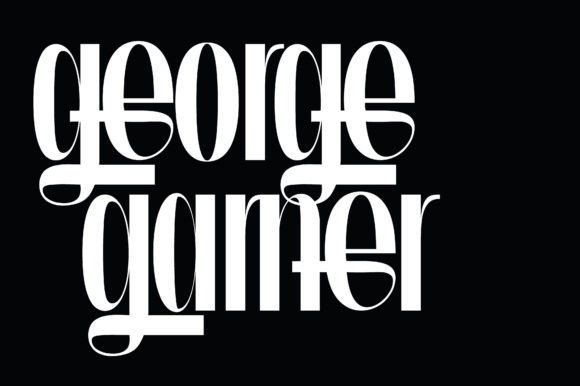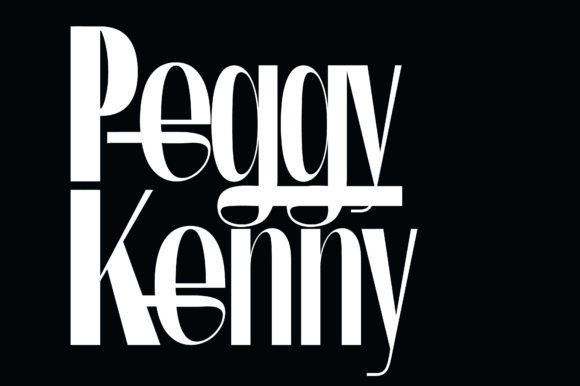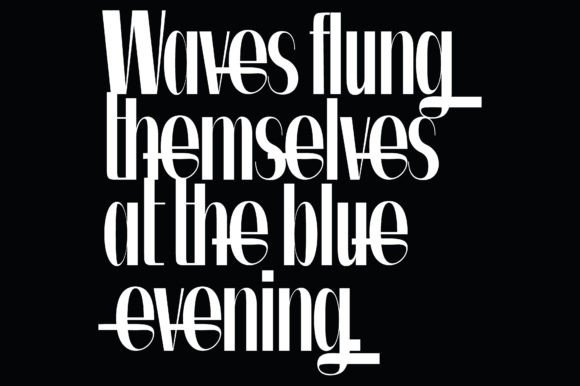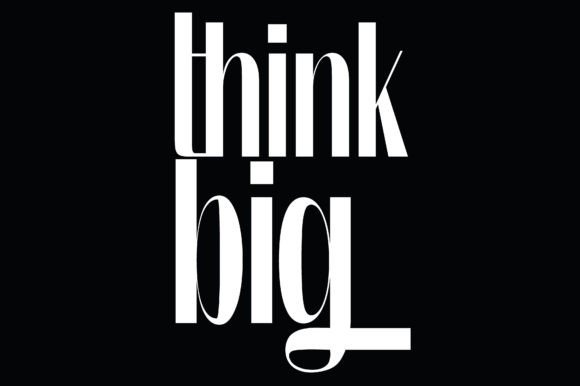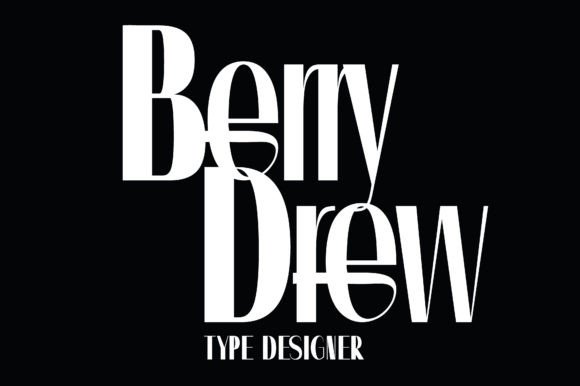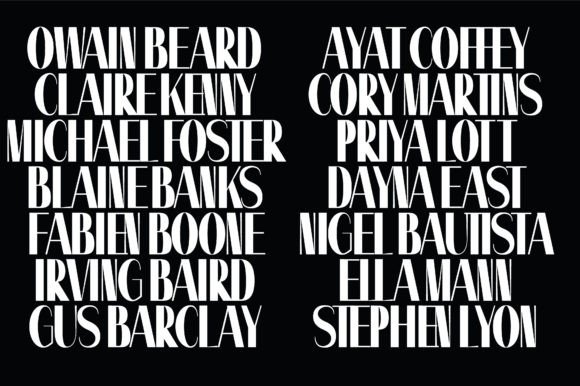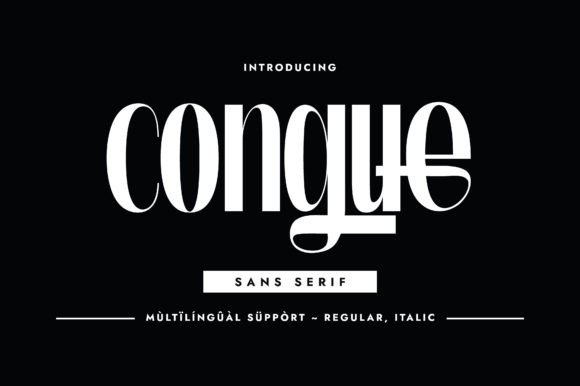
Congue Font: The Ultimate Sans Serif Typeface for Modern Designs
In the world of typography, fonts play a crucial role in conveying the message and aesthetic of a design. When it comes to creating visually stunning and attention-grabbing projects, selecting the right font is essential. This is where Congue Font comes into play – a minimalist, elegant, compressed, and eye-catchy sans serif typeface that is perfect for modern designs.
The Characteristics of Congue Font
Congue Font is a thoughtfully crafted typeface that boasts a unique combination of characteristics, making it an excellent choice for designers and crafters. Its tall and bold glyphs construction gives it a distinctive look that can instantly grab attention. The font’s minimalist and elegant design ensures that it remains versatile and can be used in a wide range of projects, from branding and advertising to packaging and digital media.
Why Choose Congue Font?
So, what makes Congue Font stand out from the rest? Here are a few reasons why designers and crafters should consider adding it to their font collection:
- Attention-grabbing: The tall and bold glyphs of Congue Font make it perfect for projects that require grabbing attention. Whether you’re designing a poster, billboard, or social media graphic, Congue Font is sure to make your message stand out.
- Versatile: Despite its bold and attention-grabbing design, Congue Font remains surprisingly versatile. Its minimalist and elegant aesthetic ensures that it can be used in a wide range of projects, from modern and edgy to clean and sophisticated.
- Easy to read: One of the key benefits of Congue Font is its excellent readability. Even at smaller font sizes, the font remains clear and easy to read, making it perfect for body text and other applications where legibility is essential.
Using Congue Font in Your Designs
So, how can you incorporate Congue Font into your designs? Here are a few ideas to get you started:
- Branding and logos: Congue Font is perfect for creating bold and attention-grabbing logos that make a statement. Its minimalist and elegant design ensures that it remains versatile and can be used in a wide range of branding applications.
- Posters and flyers: The font’s tall and bold glyphs make it perfect for creating eye-catching posters and flyers that grab attention.
- Digital media: Congue Font is also perfect for digital media, including social media graphics, website headers, and more.
Tips for Getting the Most Out of Congue Font
To get the most out of Congue Font, here are a few tips to keep in mind:
- Experiment with font sizes: Congue Font is designed to be versatile, so don’t be afraid to experiment with different font sizes to find the perfect fit for your project.
- Pair it with other fonts: Congue Font can be paired with a wide range of other fonts to create interesting and dynamic typography.
- Use it consistently: To get the most out of Congue Font, use it consistently throughout your design. This will help to create a cohesive and professional look that ties everything together.
In conclusion, Congue Font is a versatile and attention-grabbing sans serif typeface that is perfect for modern designs. Its minimalist and elegant design, combined with its tall and bold glyphs construction, make it an excellent choice for designers and crafters looking to create visually stunning projects. Whether you’re working on a branding project, poster, or digital media, Congue Font is sure to make a statement. So why not give it a try and see the amazing results for yourself?